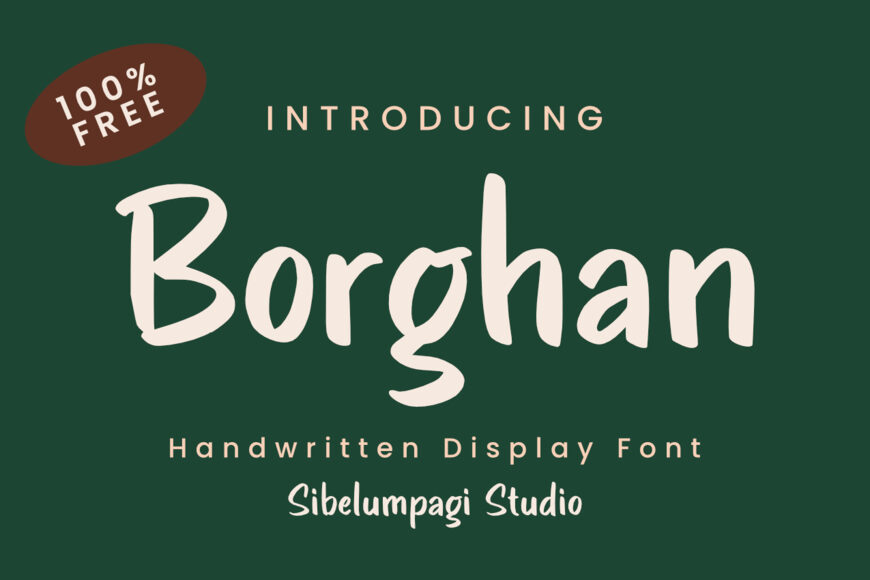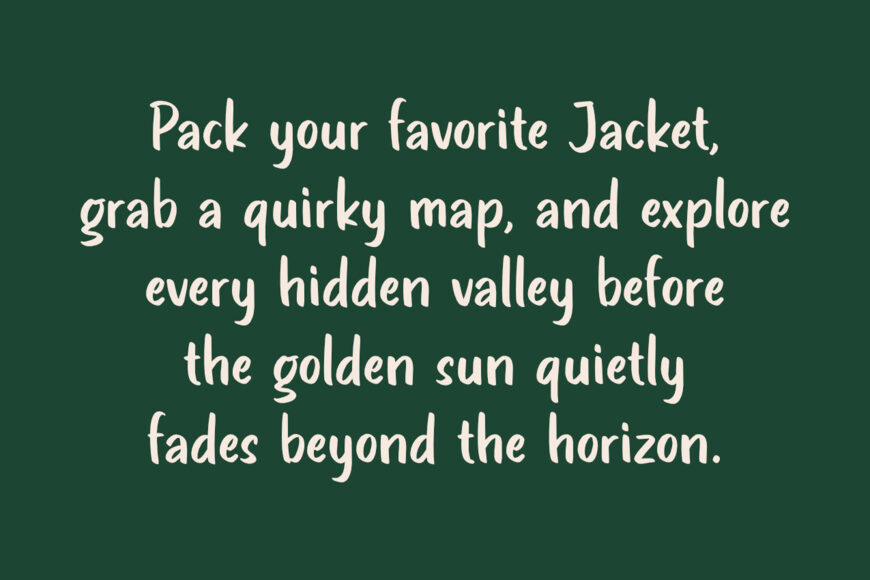
Borghan is a charming handwritten display font designed by Sibelumpagi Studio. Featuring organic, soft strokes and a relaxed, playful rhythm, it brings a warm, human touch to visual projects.
Its slightly elongated, casual letterforms give it an approachable, adventurous aesthetic—making it an ideal choice for creative branding, quotes, comics, storybooks, packaging, and travel-themed designs seeking an authentic, handcrafted feel.